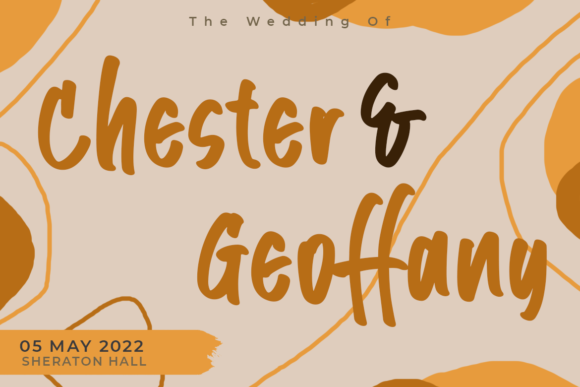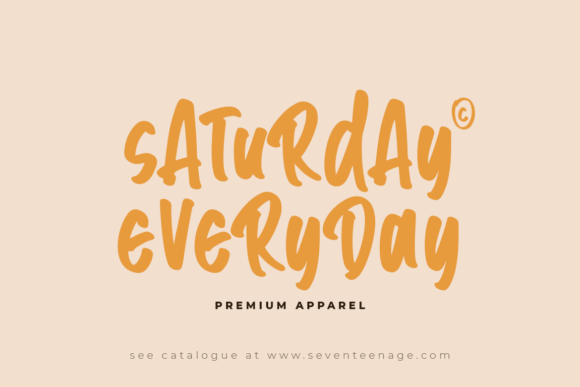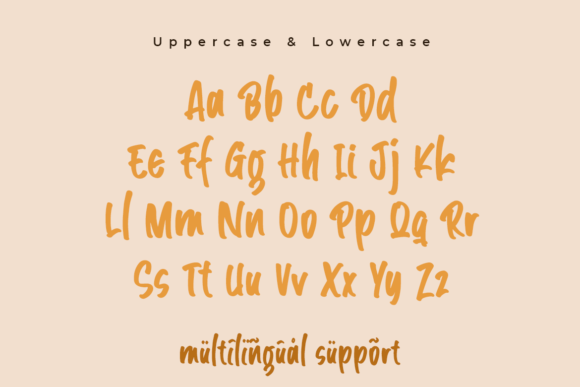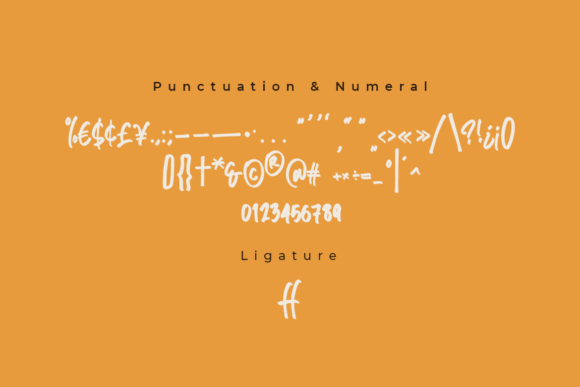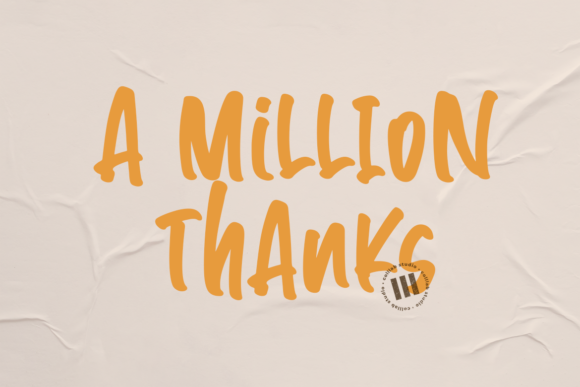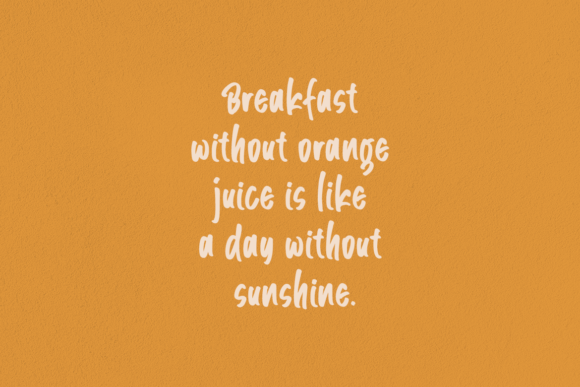
Angle Janks Font
About Angle Janks Font
Angle Janks is a mix and match, delicate, elegant, yet casual handwritten font. It has beautiful and unique characters and as a result, it matches a wide pool of designs. Add it to your most favorite ideas and notice how it makes them come alive!